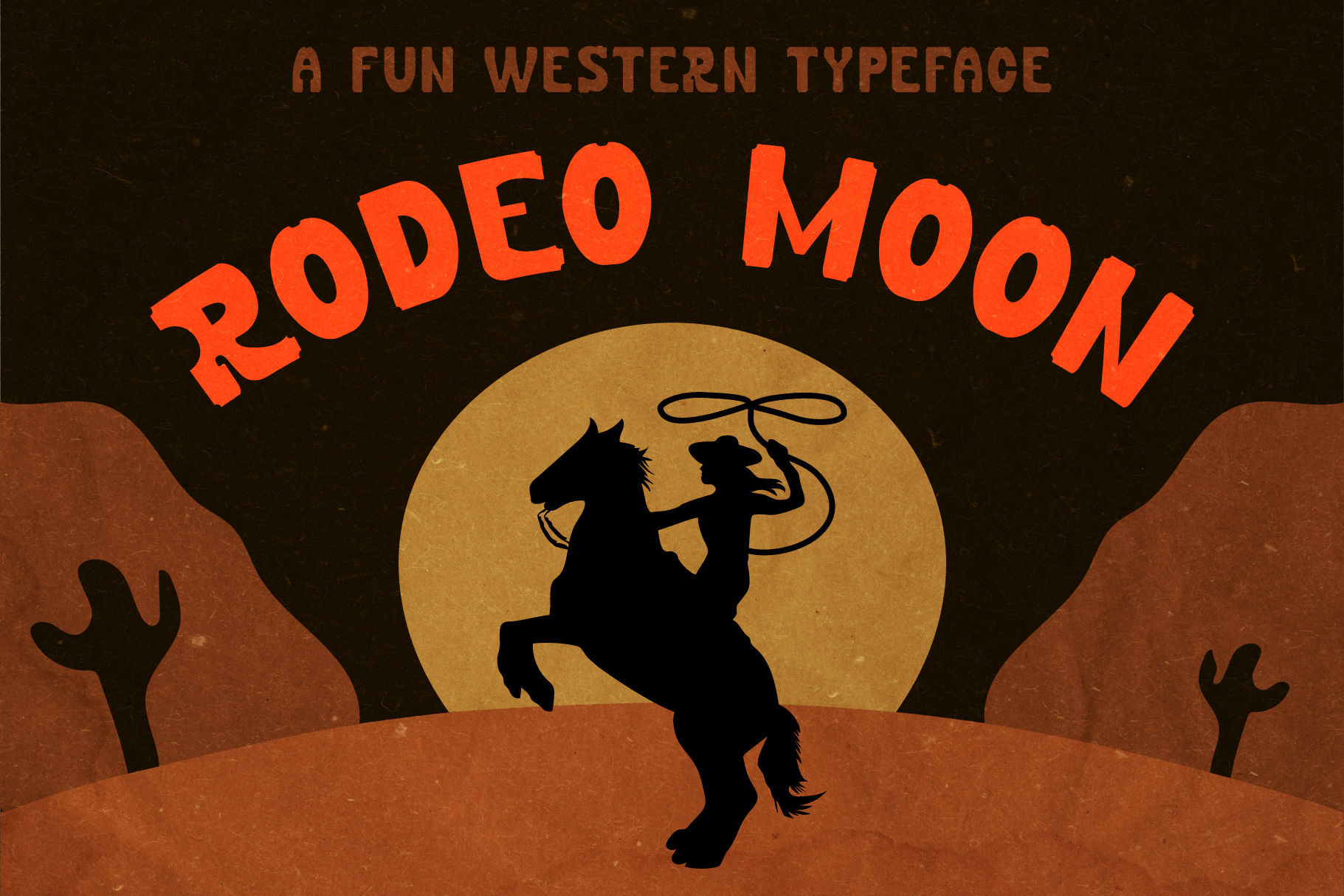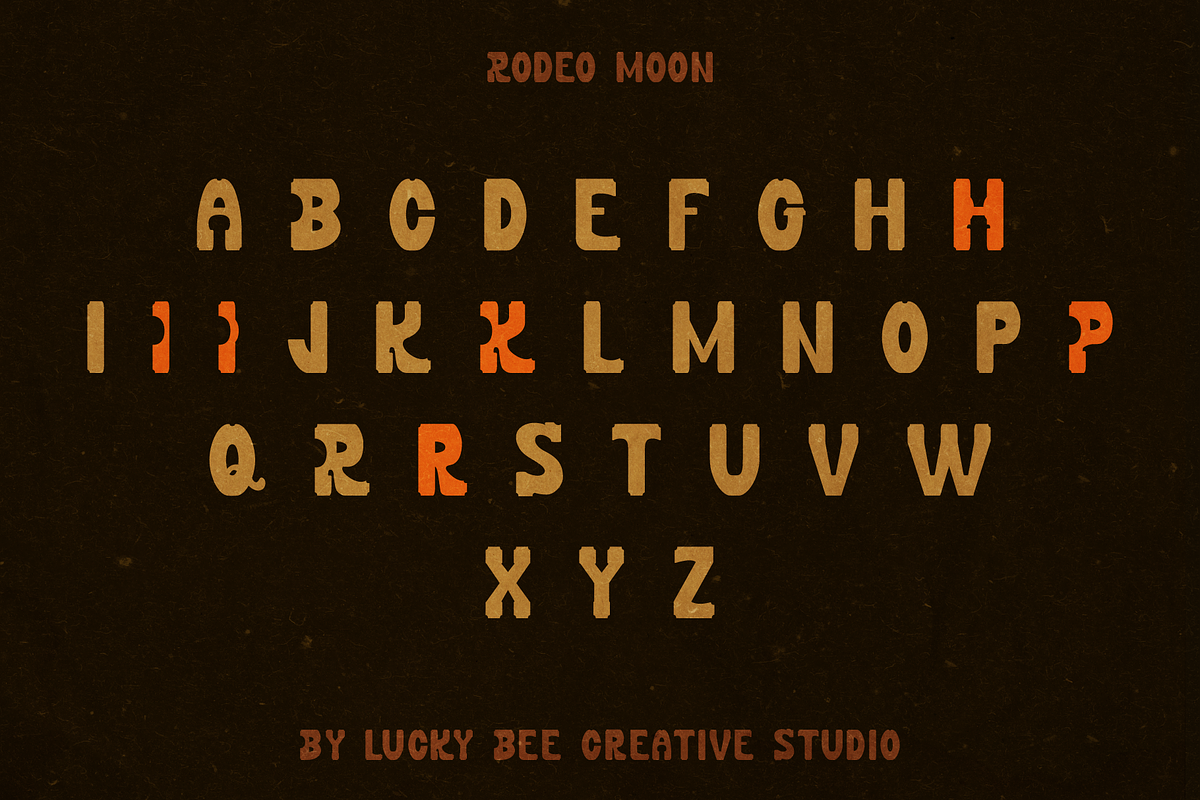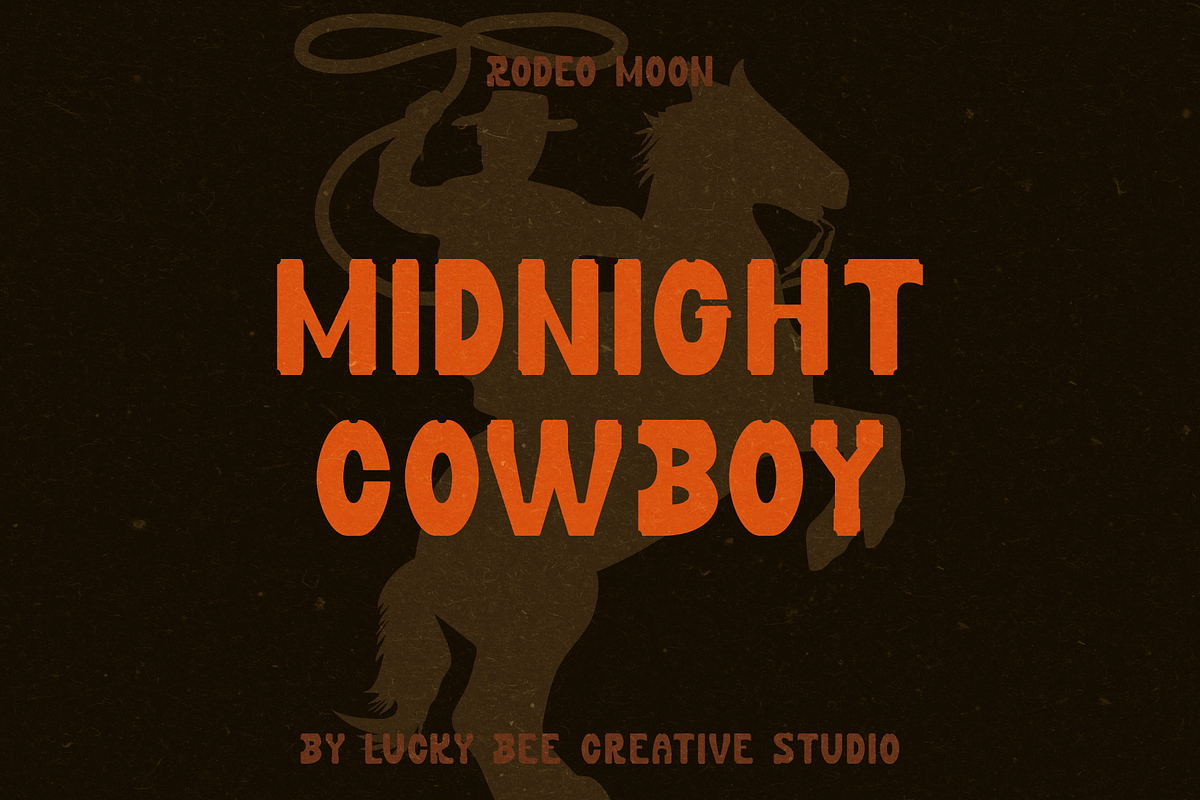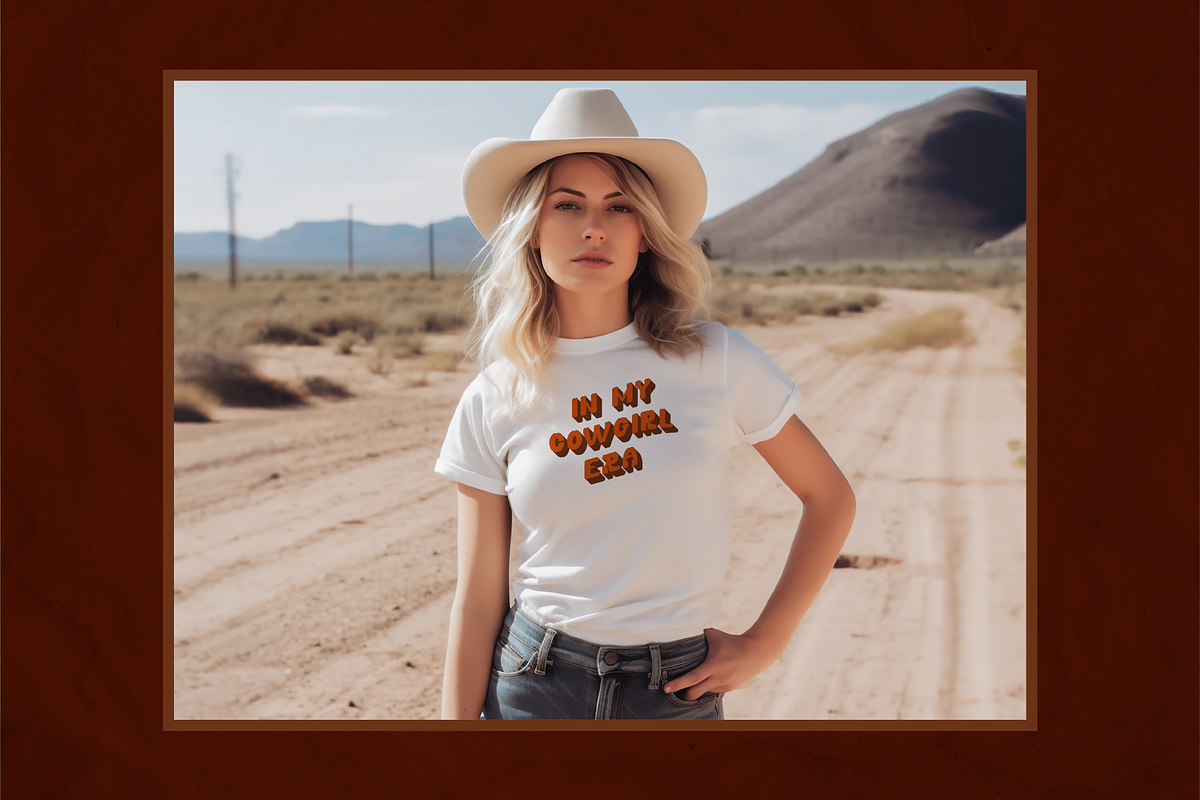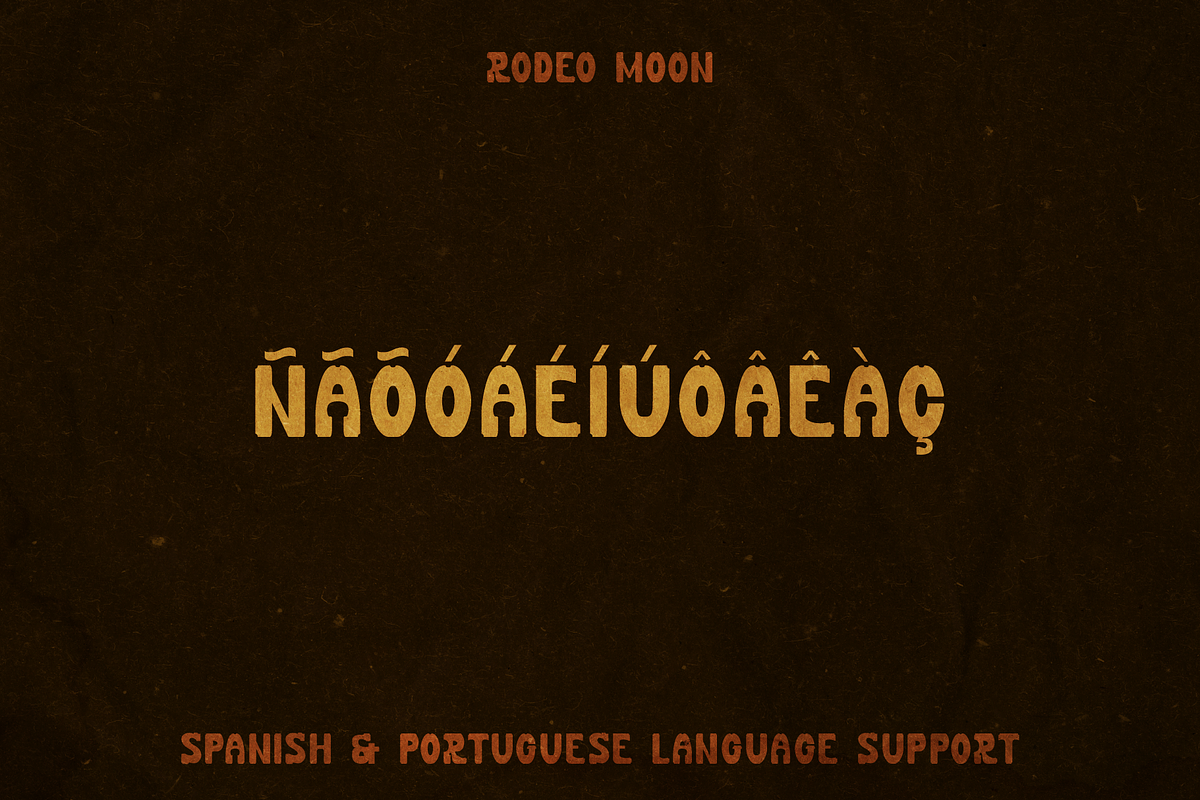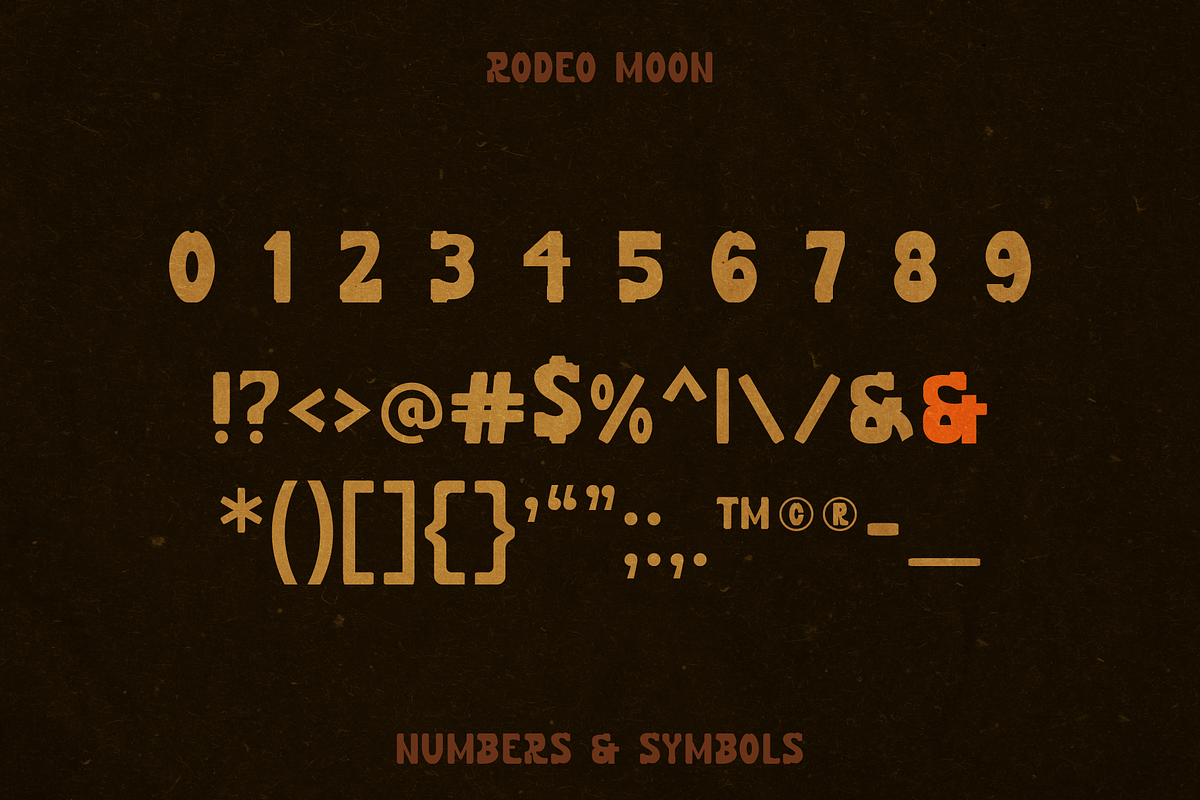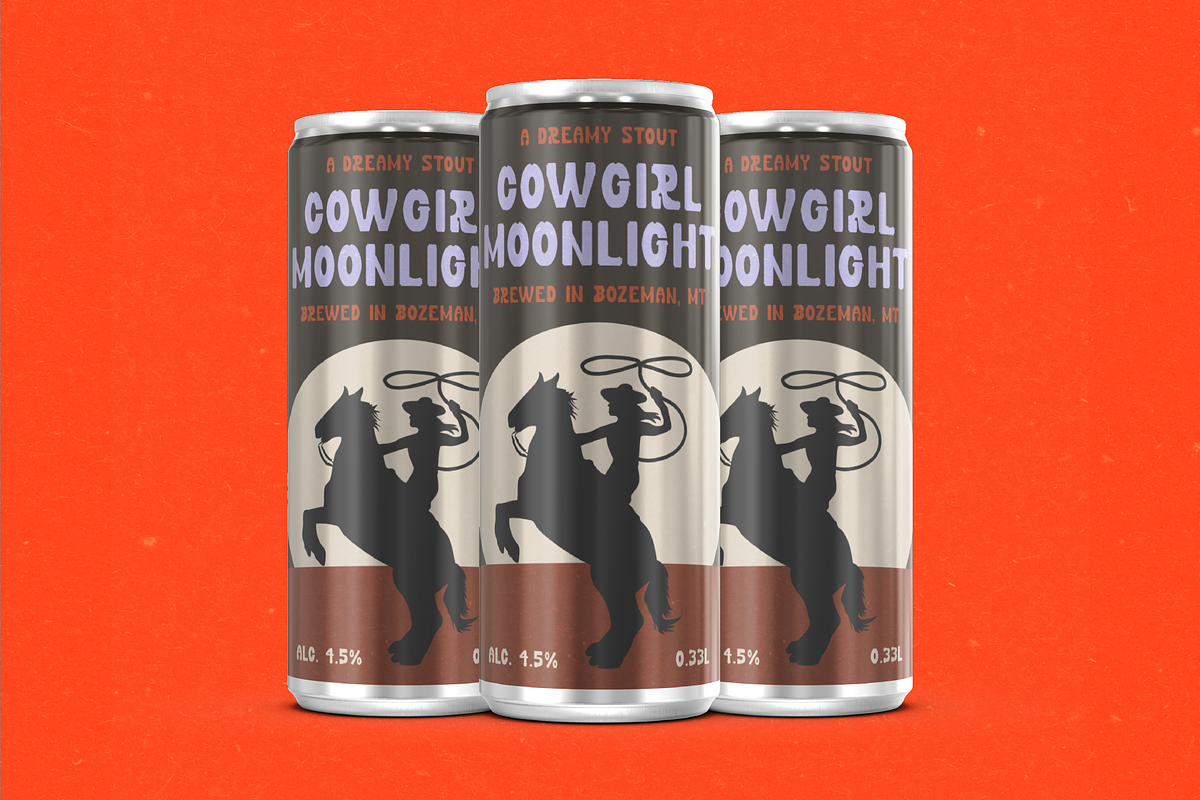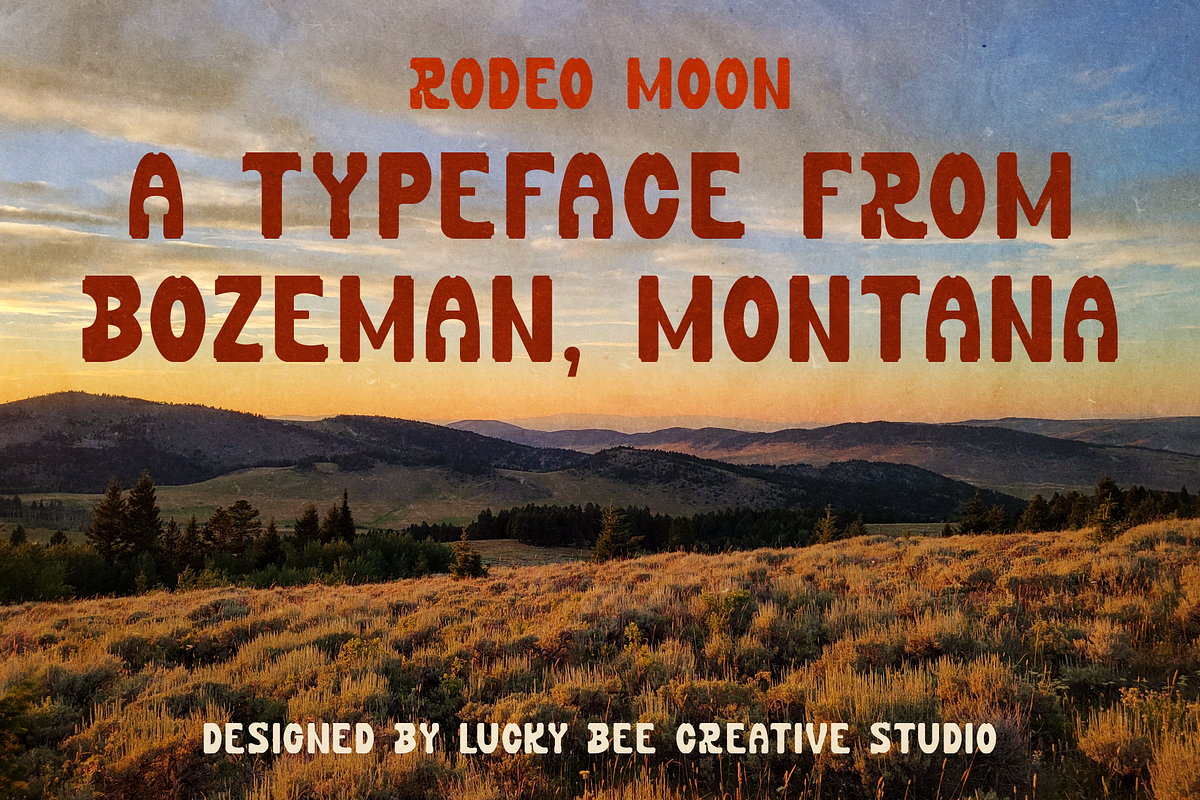
Rodeo Moon A Western Slab Serif Font
Introducing: Rodeo Moon, a western-style slab serif typeface!
This fun typeface blends the boldness of the west with rounded edges that give it a more down-to-earth, approachable feel. It's designed to be used as a display font and will pop out in various design projects such as flyers, billboards, merchandise, and more.
Lucky Bee Creative Studio is based out of Bozeman, Montana and we're constantly drawing inspiration from the history and nature found here.